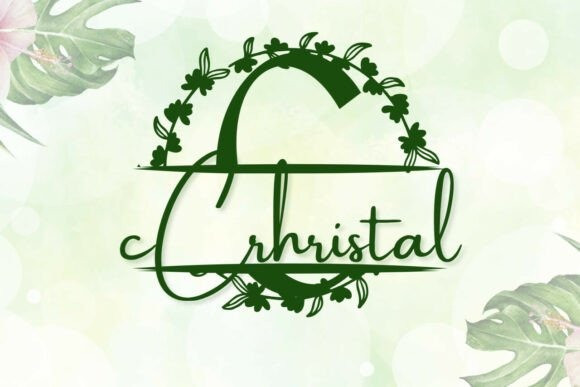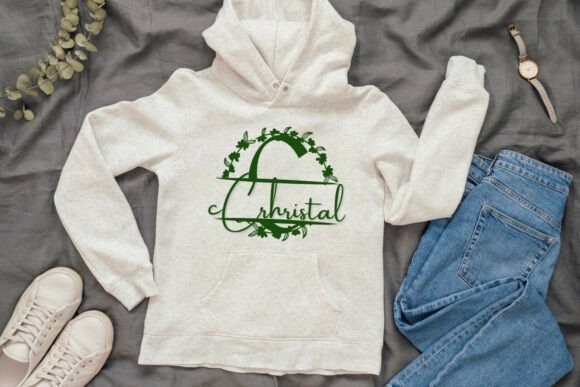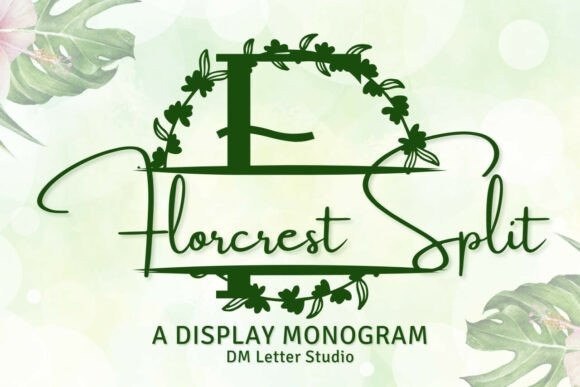
Florcrest Split Monogram Font
Florcrest Split Monogram Font turns initials into elegant nameplates in seconds. The letterforms feel botanical and refined, while the clean center split leaves space for names, dates, or short words. Because spacing stays balanced, results look polished with minimal effort. Use it for wedding gifts, family signs, door hangers, tumblers, ornaments, and boutique packaging. Moreover, the design pairs beautifully with simple sans or light scripts, so every layout stays readable and calm.
Set a single initial, then place the family name inside the split. Next, try a couple of names for keepsakes or venue names for signage. Since proportions favor clarity, designs scale from large wall art to tiny tags. As a result, the Florcrest Split Monogram Font works perfectly for Cricut, Glowforge, lasers, and vinyl projects.
Keep the main initial large to showcase the subtle botanical flair. Place the split line at the center or slightly low for balance. Meanwhile, pick a clean secondary font for the text inside the split. Because the look is airy, metallic accents and natural textures add instant value—think champagne foil on blush card, or matte black on cedar wood. However, keep names short so everything remains readable at smaller sizes.